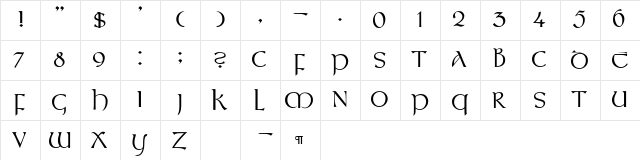
Design Context for CallifontsF55PostScript
CallifontsF55PostScript flows with the natural rhythm of handwritten lettering, making it ideal for designs that call for warmth and personal expression.
Font Pairing: Combine CallifontsF55PostScript with a simple geometric sans for maximum contrast - the tension between flowing curves and clean structure is a classic typographic pairing.
Pro Tip: Use CallifontsF55PostScript for short runs of text - names, titles, or taglines. Extended body copy in script faces tires the eye quickly.